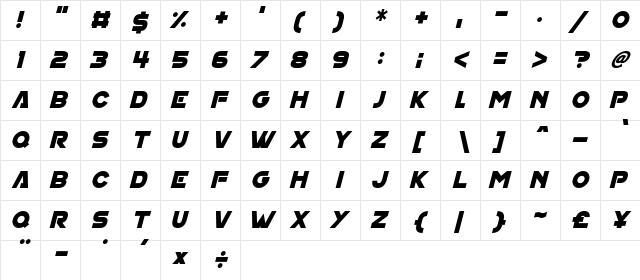
House On Mars Italic
Design Context for House On Mars Typeface
House On Mars offers clean, dependable letterforms without strong stylistic allegiance, making it a practical choice for designers who need flexibility. Its italic angle brings a sense of urgency and motion to the letterforms.